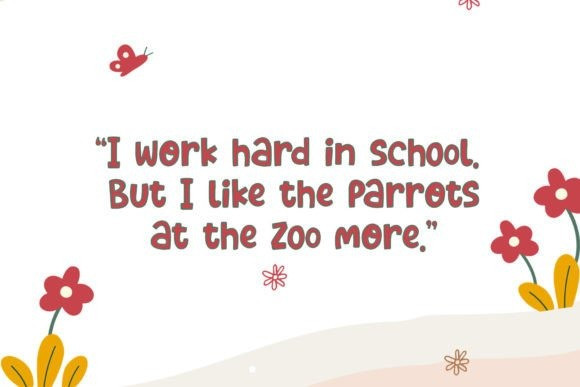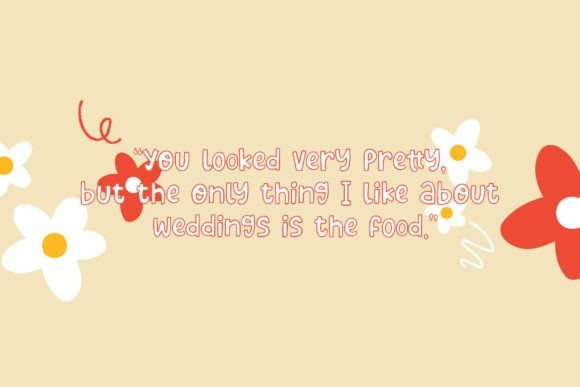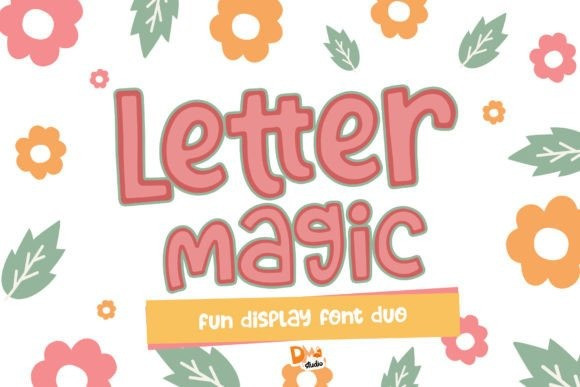
Letter Magic Font
Letter Magic Font  is a fun display font with a filled and outlined version. Let them stand alone or combine them to make your design more different and awesome!